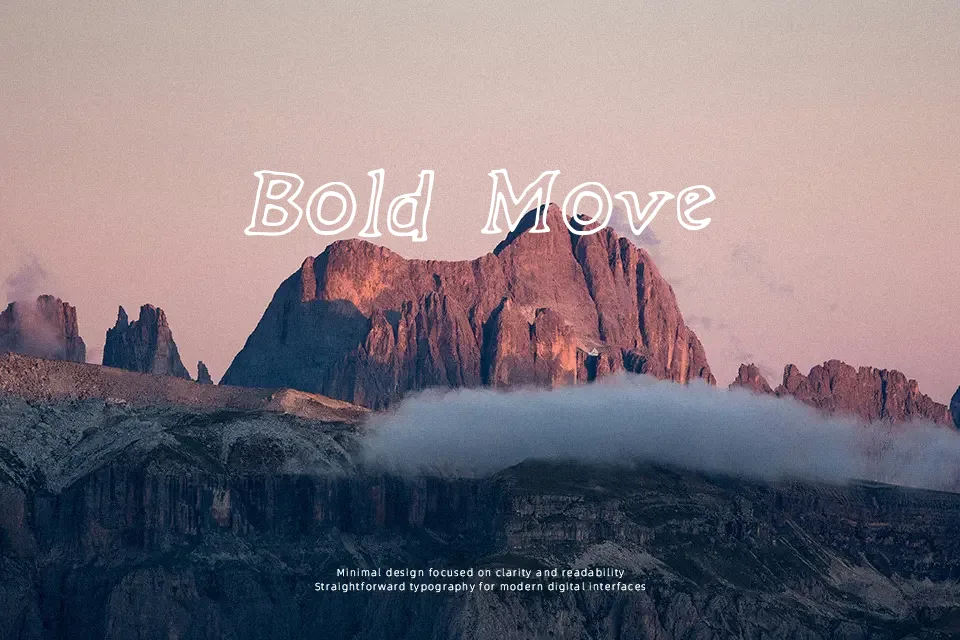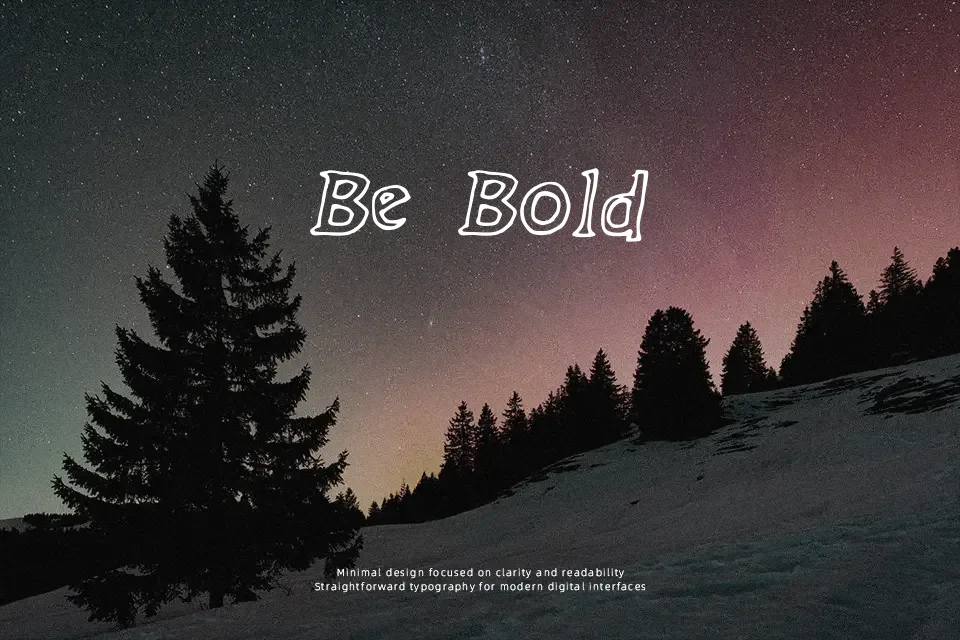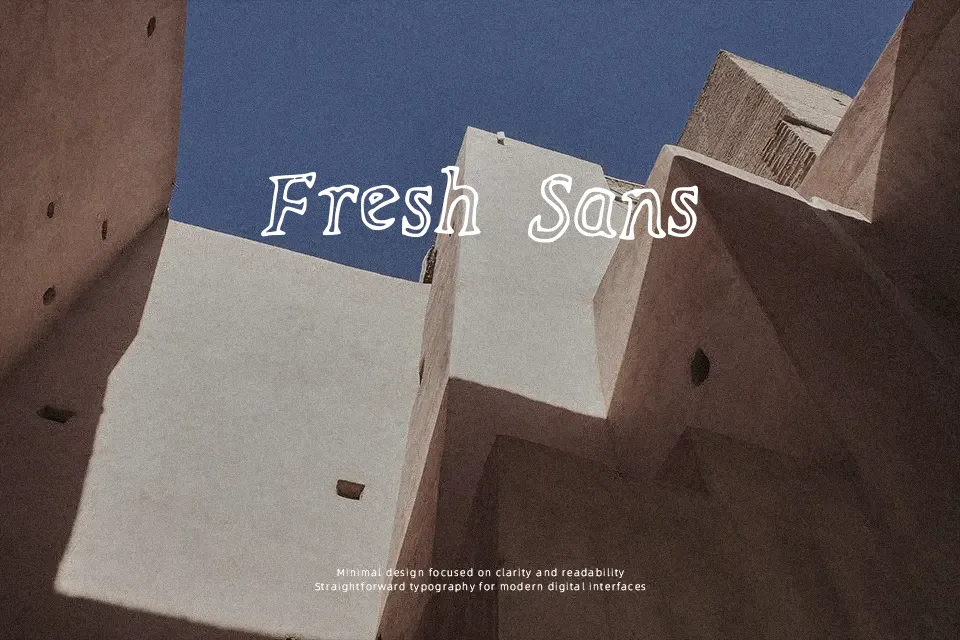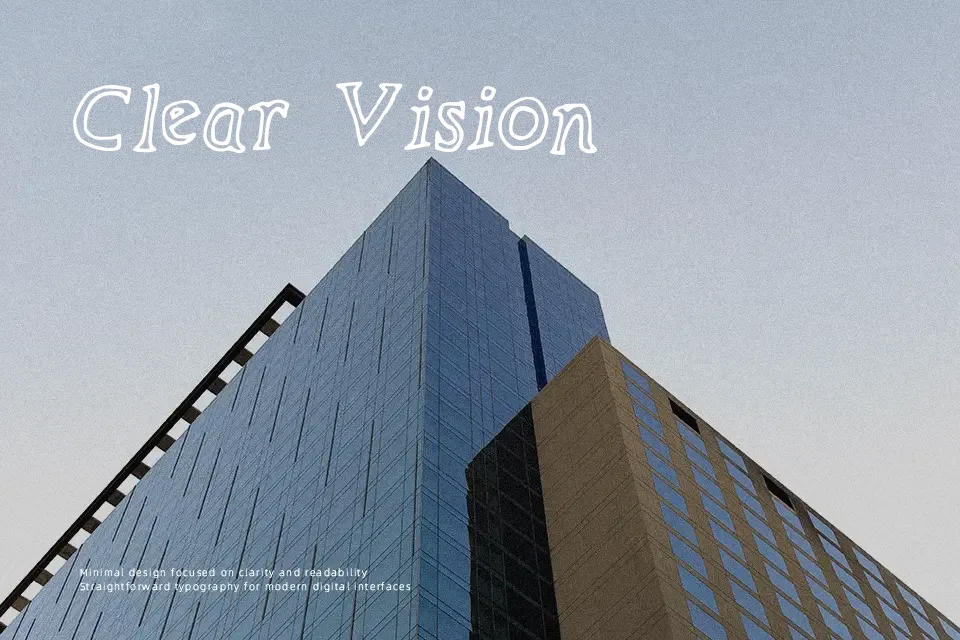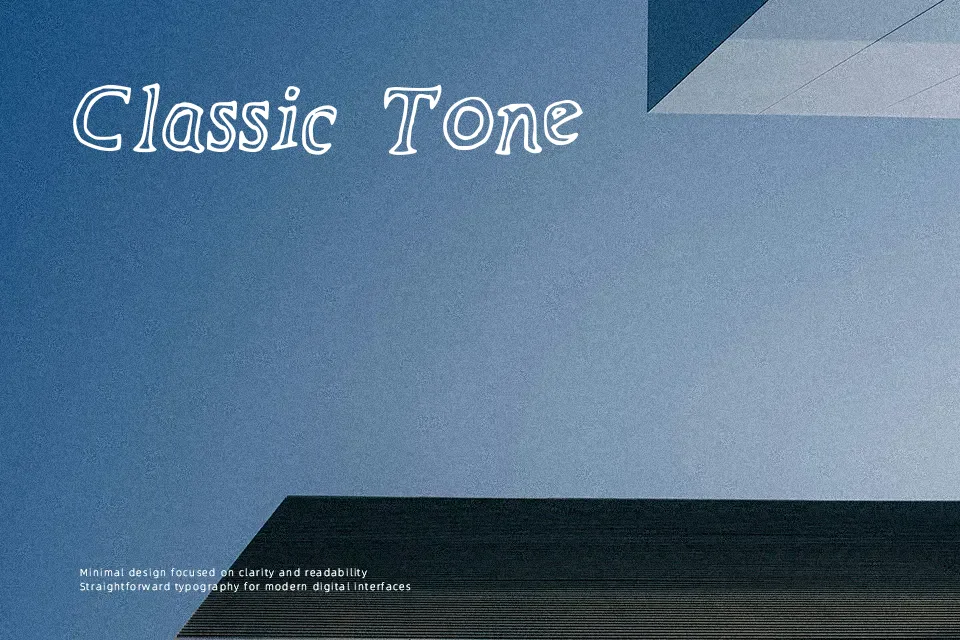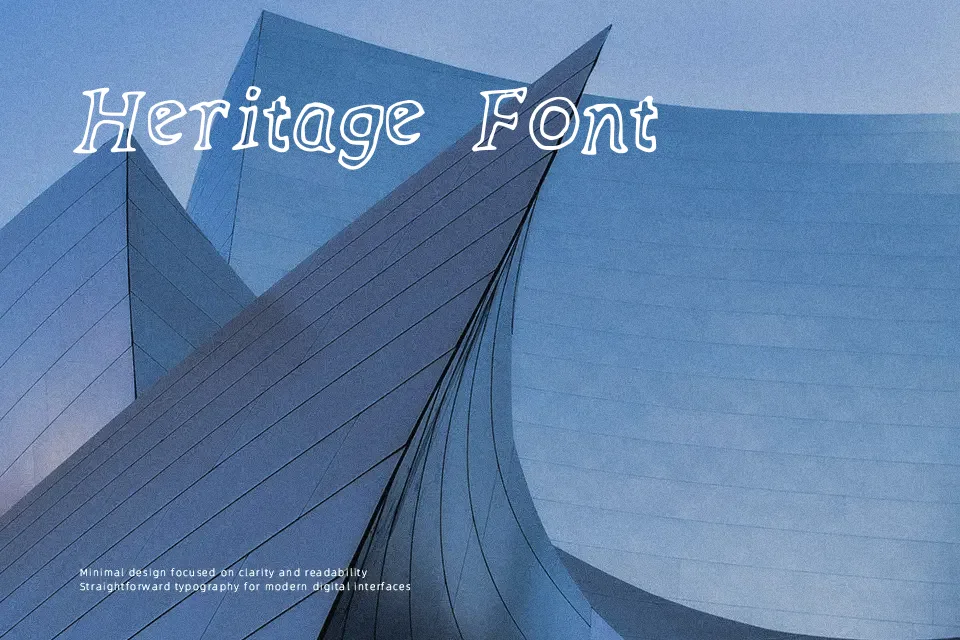
The Neverlanders Font
Designed with exaggerated contours and a jaunty stance, The Neverlanders Font delivers an animated aesthetic suited for lighthearted presentation work. Its letterforms feature thick outer strokes with hollow interiors, medium contrast, and slightly uneven structural heights that evoke hand-drawn comic craftsmanship. Moderate letter spacing gives each character sufficient room to breathe across wide headline compositions, keeping individual glyphs distinct at prominent scales. However, the open boundary styling makes the typeface ill-suited for dense paragraphs or miniature interface elements, where overlapping internal lines degrade legibility. For themed merchandise, children’s story chapter headings, and dynamic cartoon graphics, the design provides an engaging focal point that commands attention.
Best For: children’s book covers, fantasy video game titles, animated movie posters, youth event banners
Not Ideal For: long paragraph text, mobile user interface labels, corporate annual reports, technical documentation